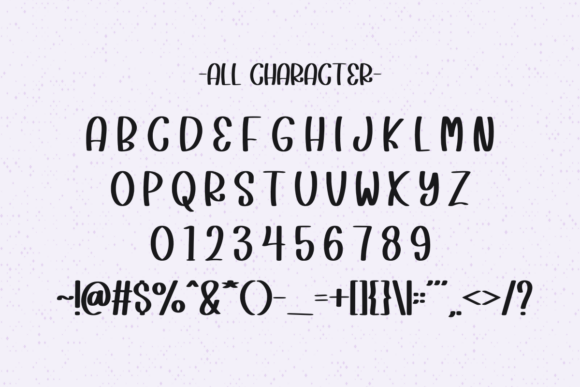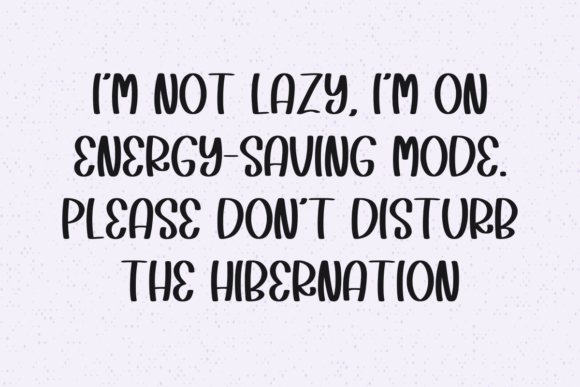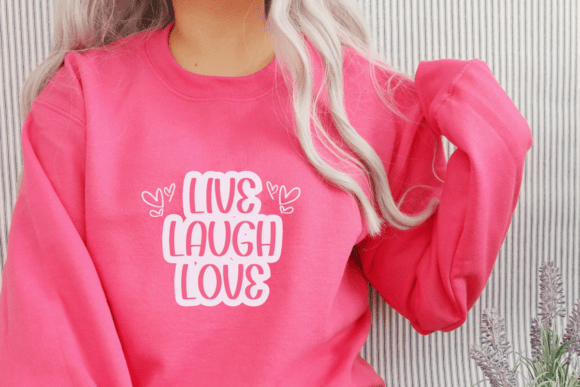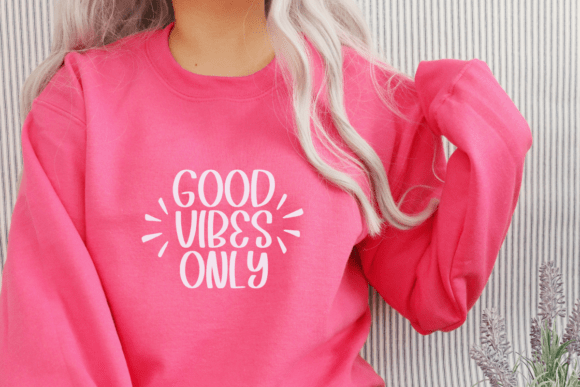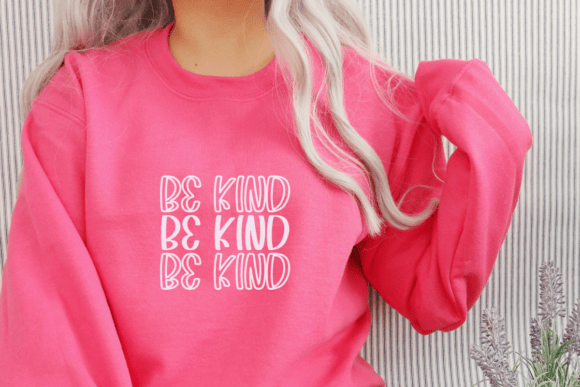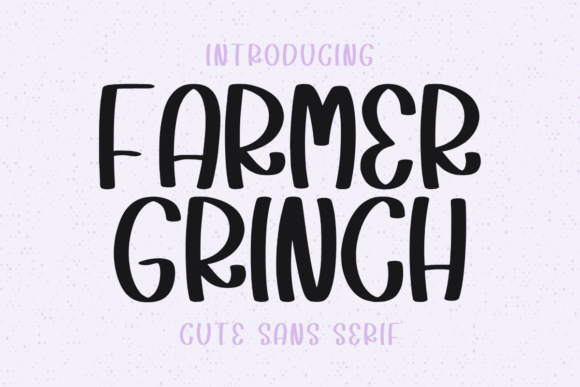
Introducing Farmer Grinch Font: The Perfect Addition to Your Creative Projects
Are you a crafter, designer, or maker looking for a fun and playful font to elevate your DIY projects? Look no further than the Farmer Grinch Font! This adorable font is perfect for a variety of creative endeavors, including crafts, planners, KDP, stickers, greeting cards, and more.
What is Farmer Grinch Font?
Farmer Grinch Font is a unique and charming font that’s designed to bring a touch of whimsy and friendliness to your projects. Its cute and approachable style makes it an ideal choice for crafters, designers, and makers who want to add a personal touch to their creations.
Perfect for Cricut, Sublimation, and DIY Projects
One of the best things about Farmer Grinch Font is its versatility. It works seamlessly with popular cutting machines like Cricut, making it perfect for vinyl projects, iron-on designs, and paper crafting. Additionally, it’s optimized for sublimation, allowing you to create stunning heat transfers for your projects.
Whether you’re a seasoned crafter or just starting out, Farmer Grinch Font is an excellent choice for any DIY project. Its playful style is sure to delight, and its ease of use makes it accessible to crafters of all skill levels.
The possibilities are endless when it comes to using Farmer Grinch Font in your creative projects. Here are just a few ideas to get you started:
- Crafts: Use Farmer Grinch Font to add a personal touch to your handmade crafts, such as quilts, scrapbook pages, and card making projects.
- Planners: Add a playful touch to your planners and journals with Farmer Grinch Font. It’s perfect for creating custom headers, titles, and labels.
- KDP: If you’re an author or publisher, Farmer Grinch Font is a great choice for creating eye-catching book covers, titles, and headings.
- Stickers: Create custom stickers with Farmer Grinch Font for your planners, journals, or laptops.
- Greeting Cards: Use Farmer Grinch Font to create one-of-a-kind greeting cards for special occasions.
Why Choose Farmer Grinch Font?
So, why should you choose Farmer Grinch Font for your creative projects? Here are just a few reasons:
- Unique Style: Farmer Grinch Font has a one-of-a-kind style that’s sure to stand out in any project.
- Ease of Use: This font is easy to use and works seamlessly with popular design software and cutting machines.
- Versatility: Farmer Grinch Font can be used for a wide range of creative projects, from crafts and planners to KDP and stickers.
- Fun and Playful: This font is perfect for adding a touch of whimsy and fun to your projects.
In conclusion, Farmer Grinch Font is a fun and playful font that’s perfect for crafters, designers, and makers. Its cute and friendly style makes it an ideal choice for a wide range of creative projects, from crafts and planners to KDP and stickers. With its ease of use, versatility, and unique style, Farmer Grinch Font is sure to become a favorite in your design arsenal.